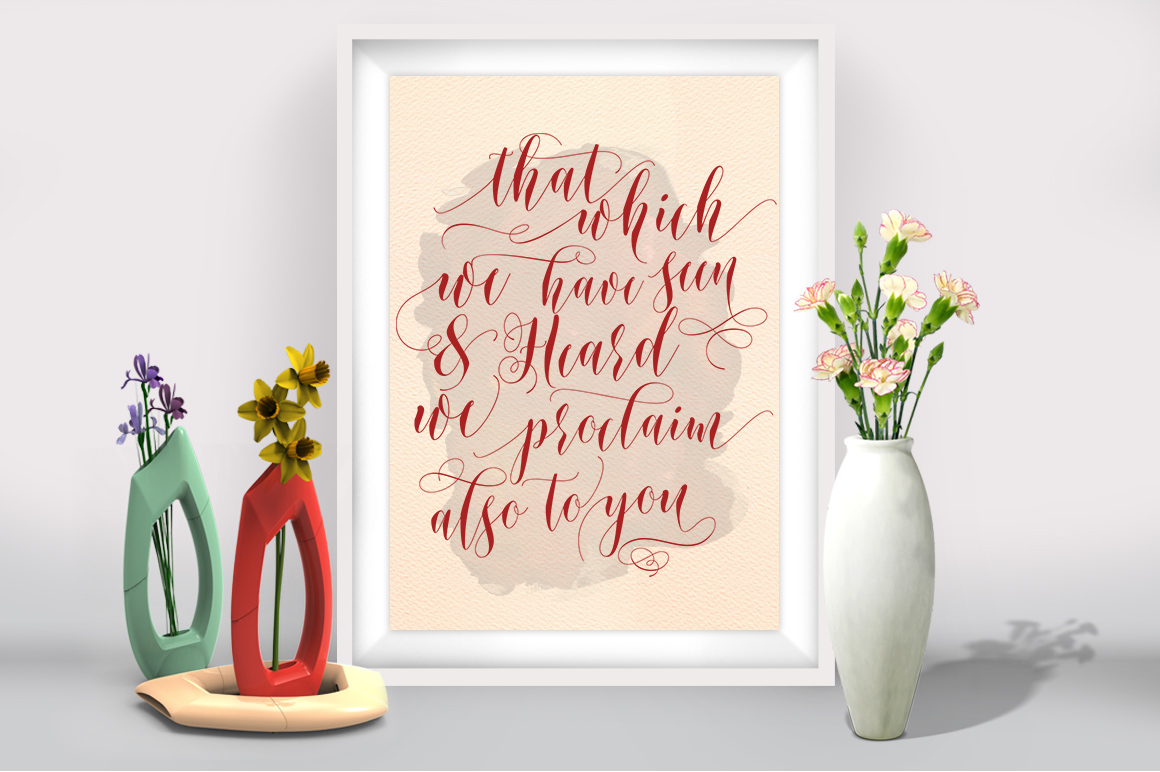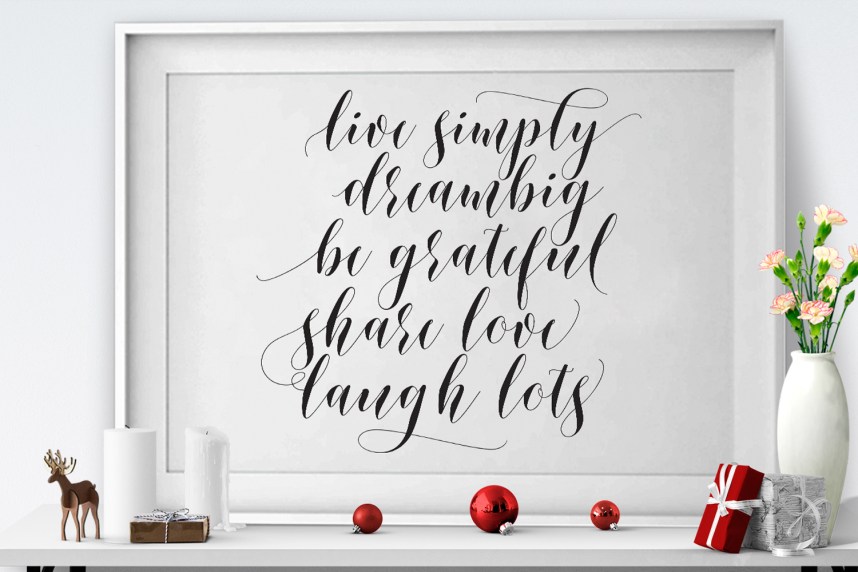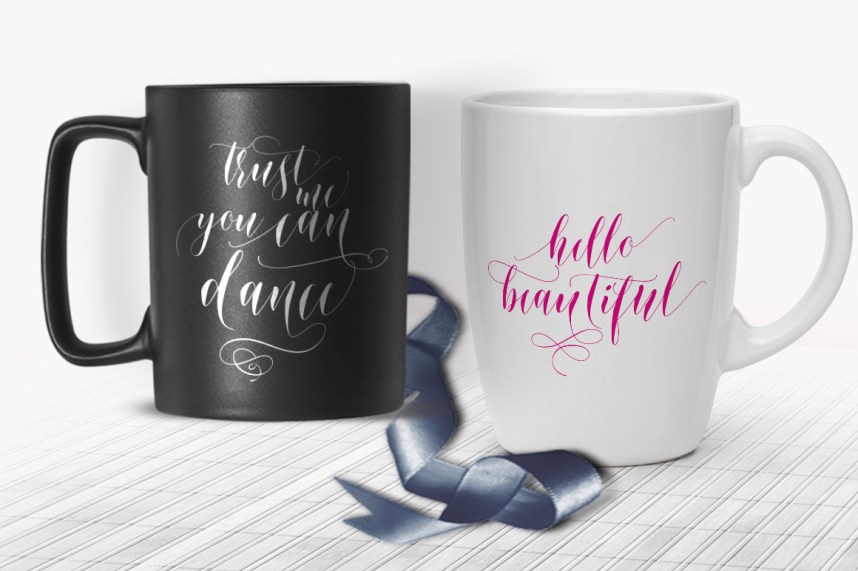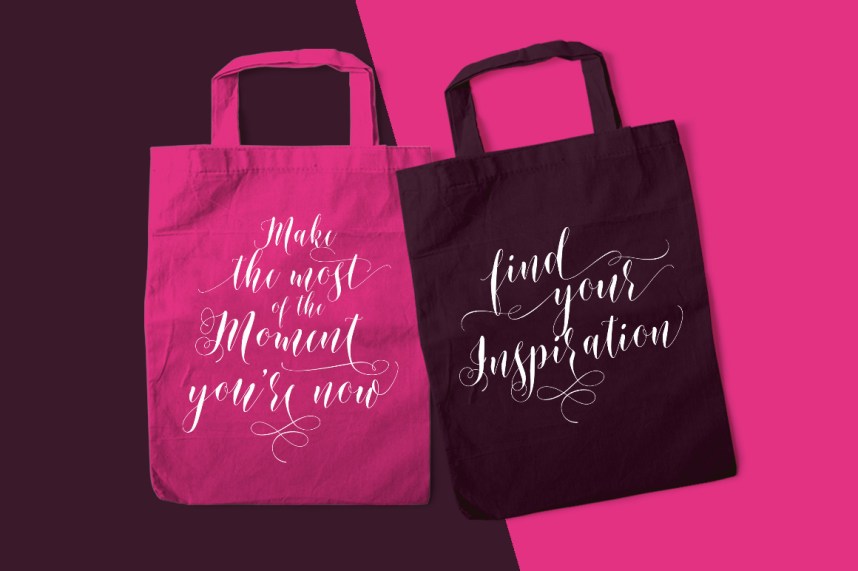
Shinthia Script Font
ShinthiaScript is a hand calligraphy, smooth, modern and classic, calligraphy wavy, that can be used for the purposes of the next design project. Shinthia Script, Can used for various purposes. Such as the title, signature, logo, correspondence, wedding invitations, letterhead, signage, labels, newsletters, printed quotes, packaging, headers and anything else about your imagination.